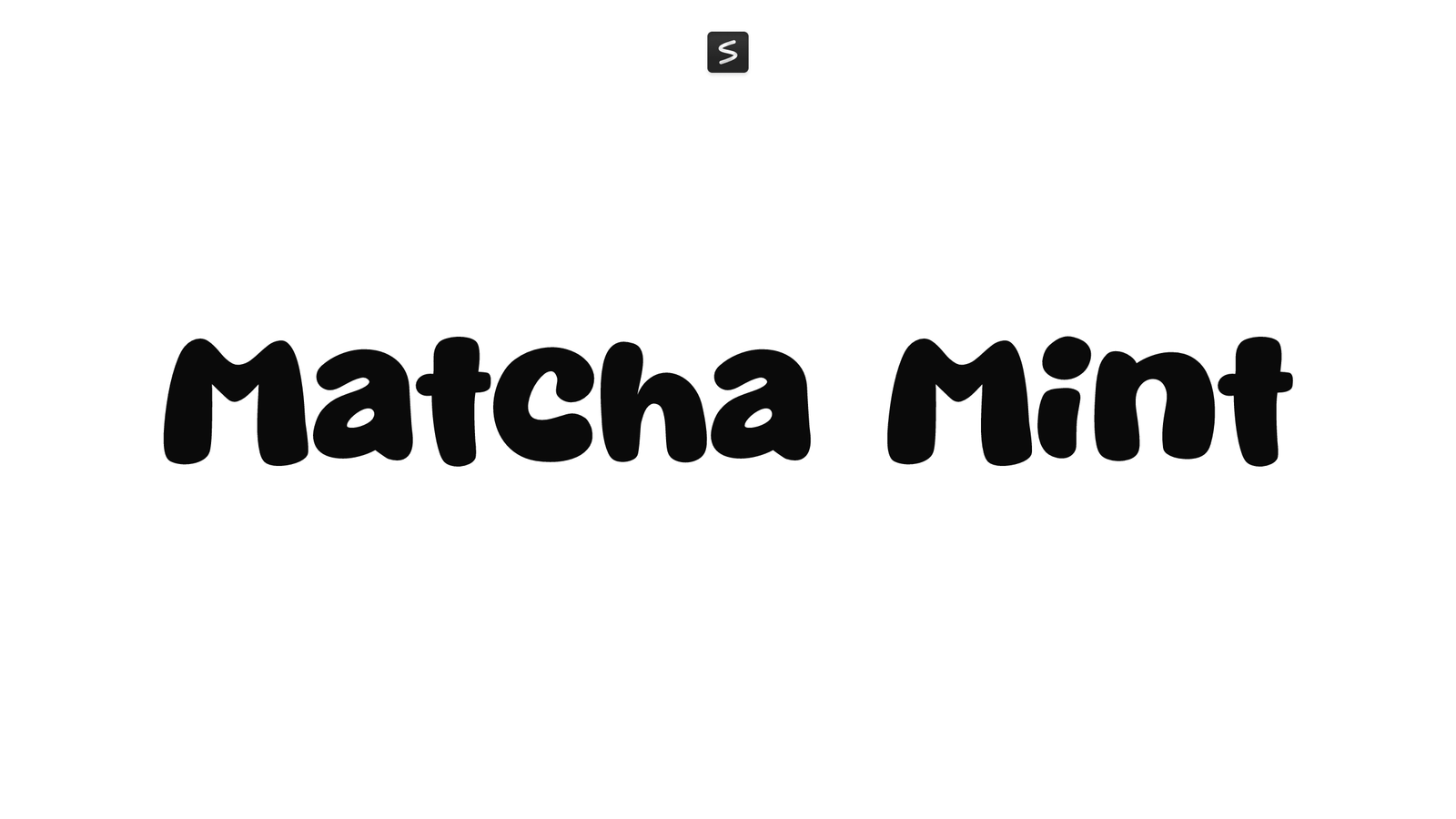
Matcha Mint is a chunky, rounded sans-serif designed by Khurasan™. Each letter is plump and smooth, with consistent curves that give the whole typeface a friendly, cartoon-like character. The bold weight and approachable forms make it feel less formal and more playful, suitable for work that needs warmth and accessibility.
The uniform roundness and generous proportions give Matcha Mint a youthful energy without being juvenile. It works well in branding for younger audiences, children’s books, packaging, game interfaces, or any project where a soft, inviting tone matters more than gravitas. The straightforward letterforms also mean it reads clearly even at smaller sizes, which keeps it practical alongside its visual charm.
Whether you’re designing posters, social media graphics, logos, or app UI, Matcha Mint brings a sense of ease and approachability to text. It’s a solid choice when you want personality without distraction.